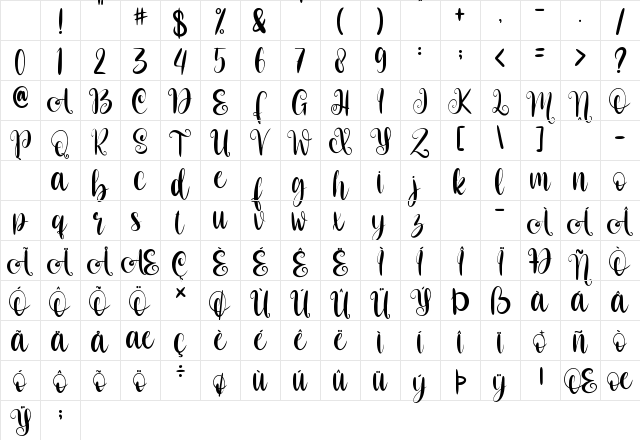
Christmas Script-Personal use flows with the natural rhythm of handwritten lettering, making it ideal for designs that call for warmth and personal expression.
Font Pairing: Combine Christmas Script-Personal use with a simple geometric sans for maximum contrast - the tension between flowing curves and clean structure is a classic typographic pairing.
Pro Tip: Use Christmas Script-Personal use for short runs of text - names, titles, or taglines. Extended body copy in script faces tires the eye quickly.